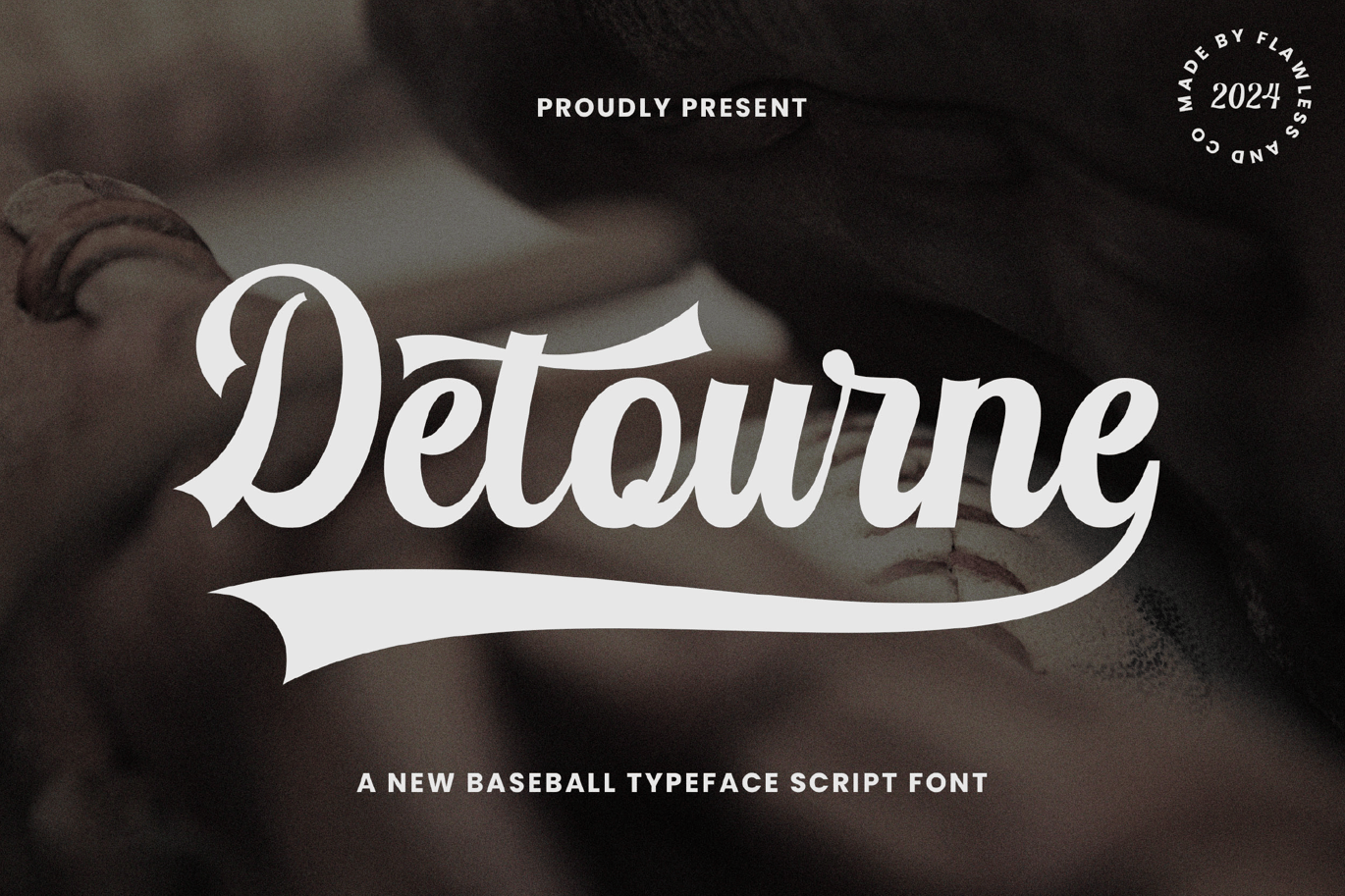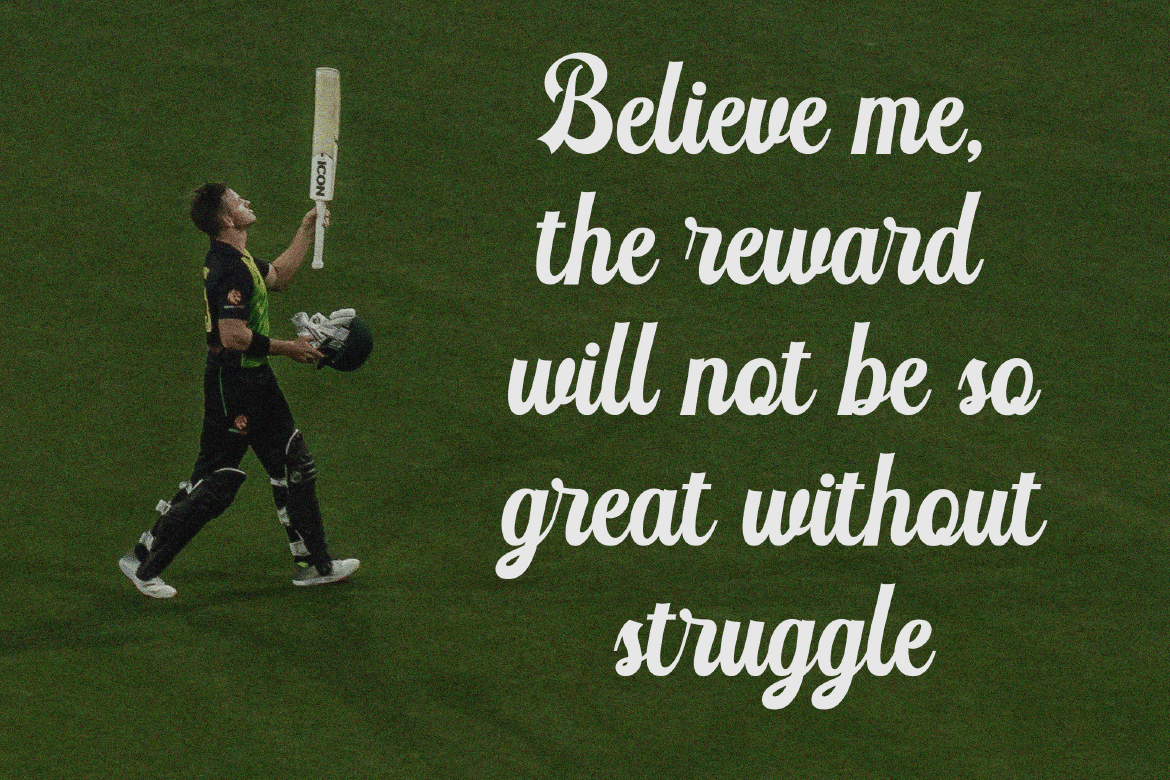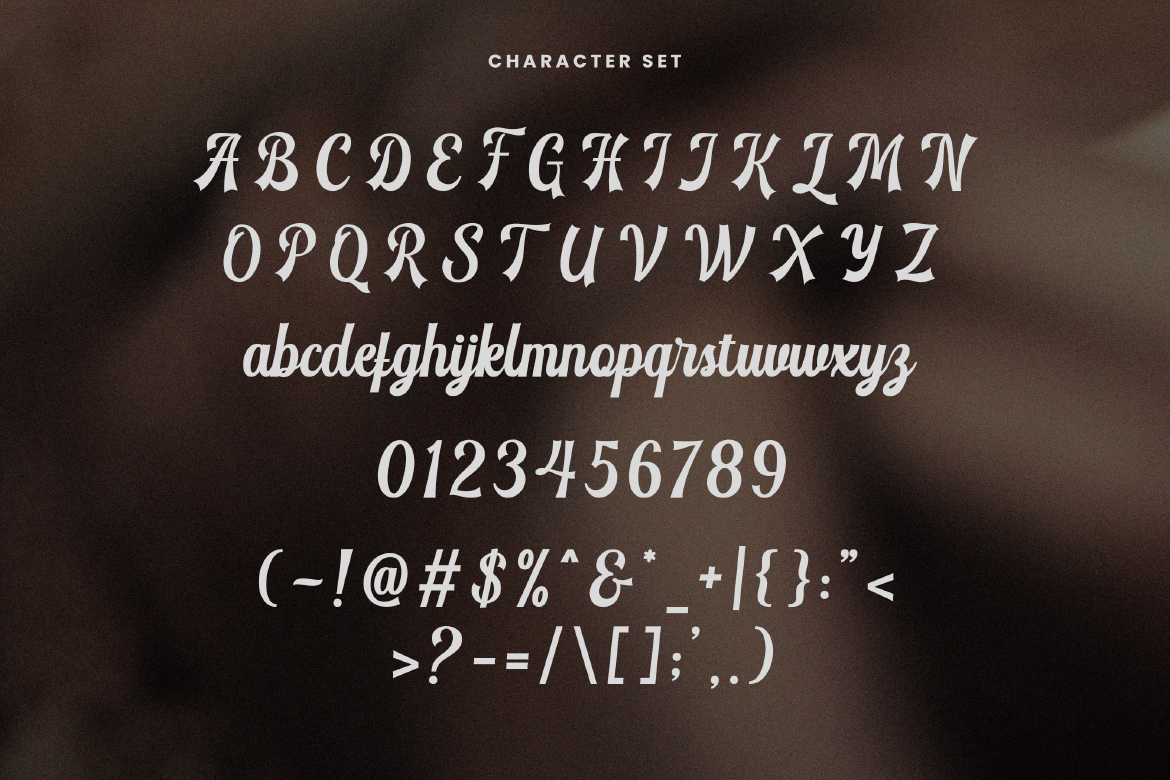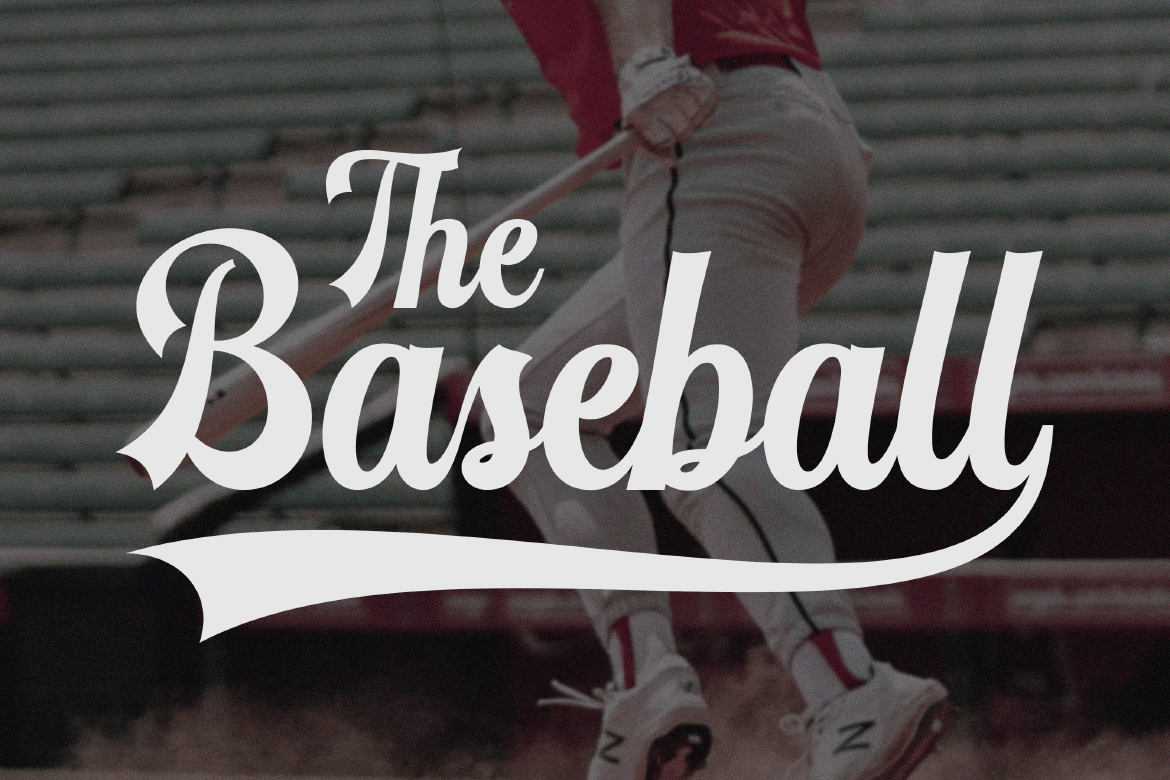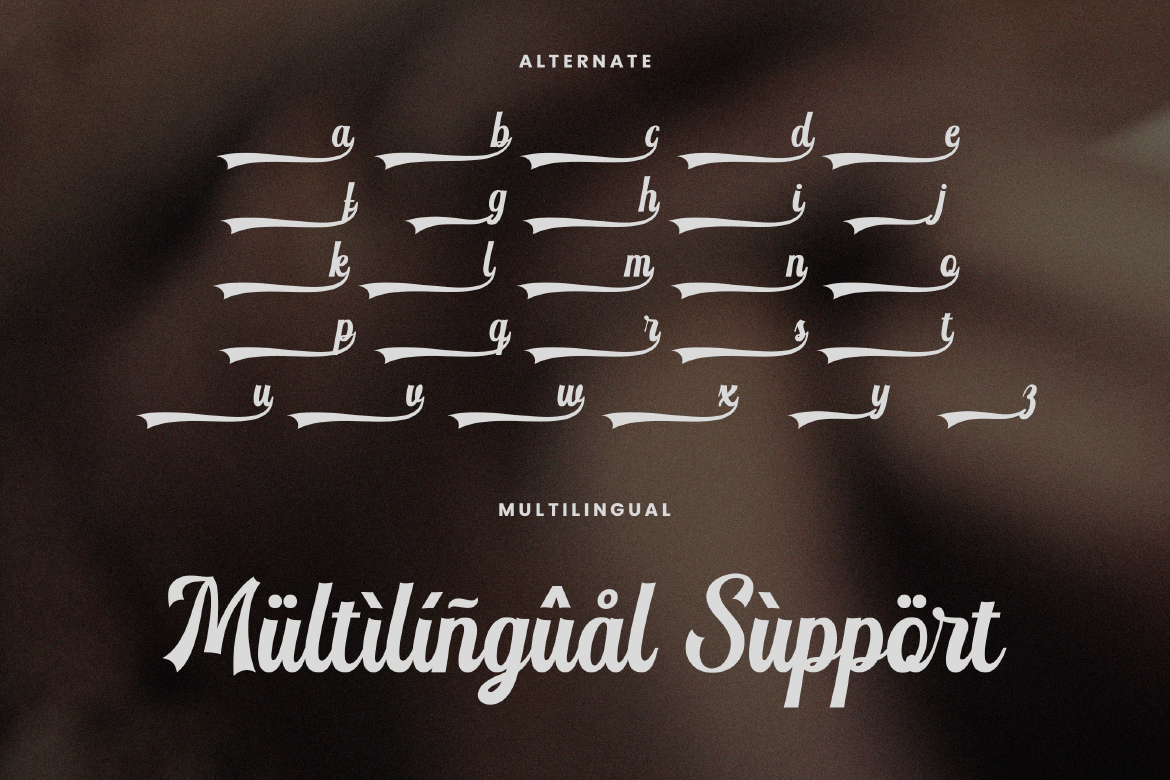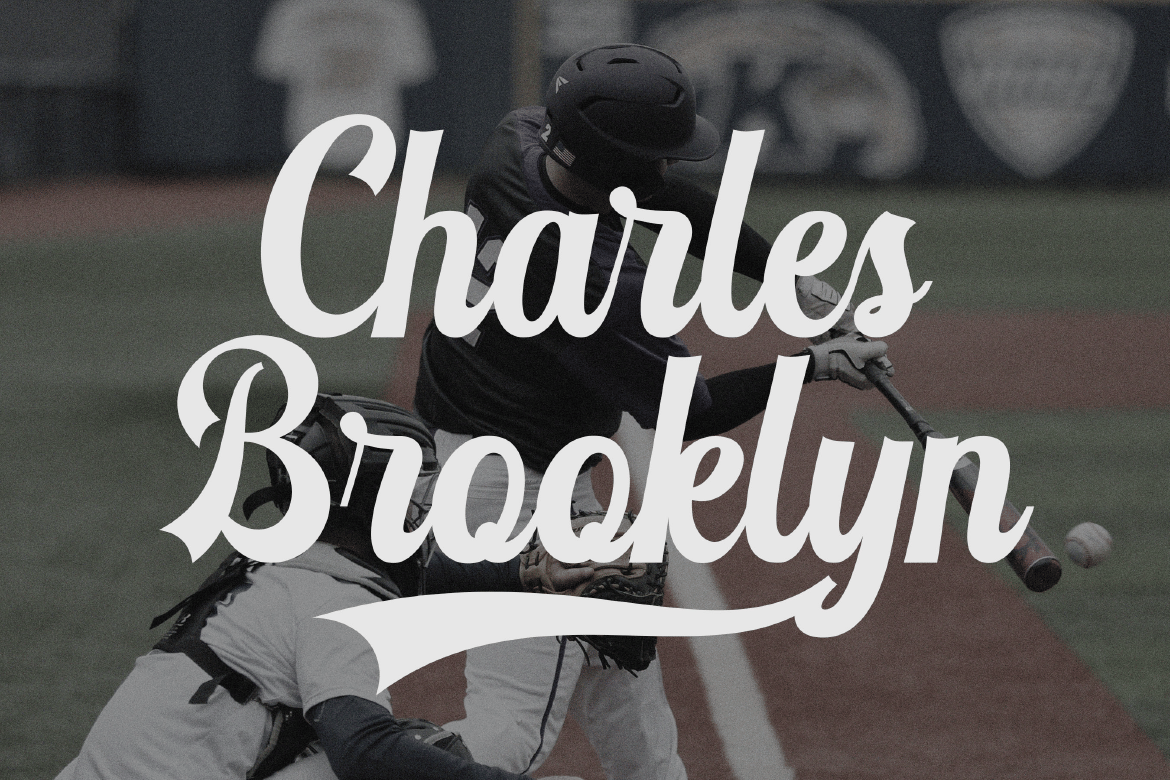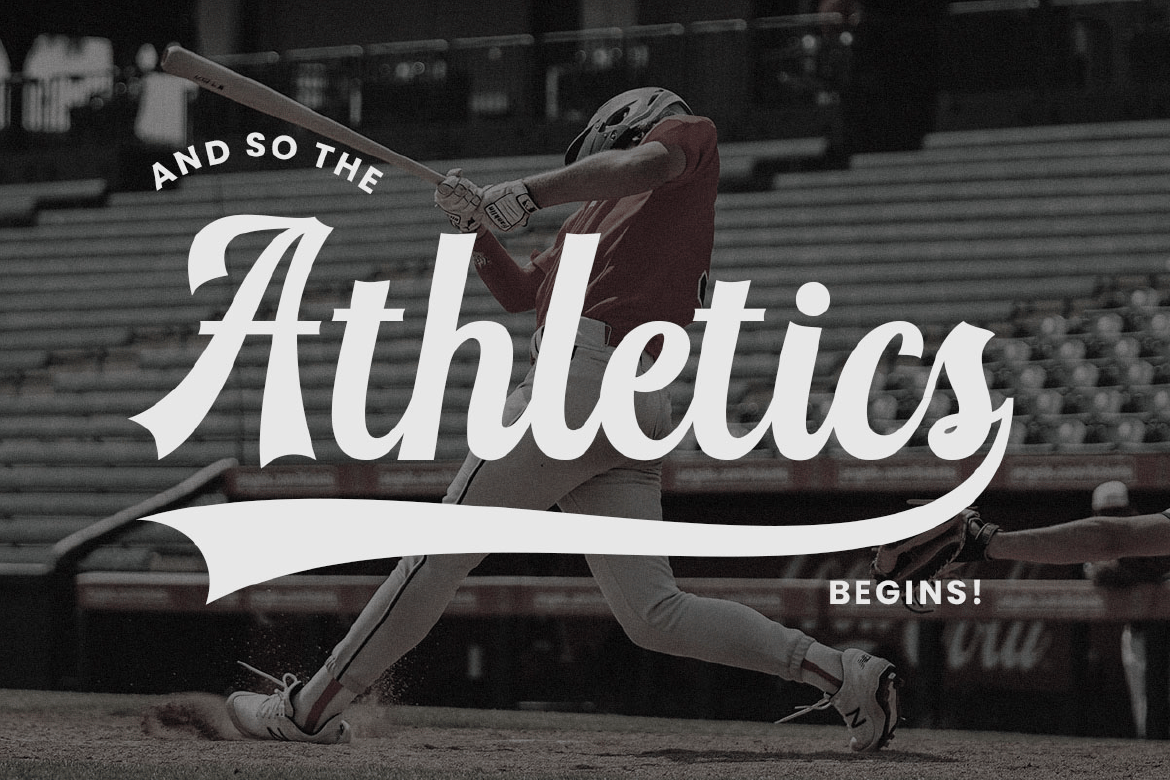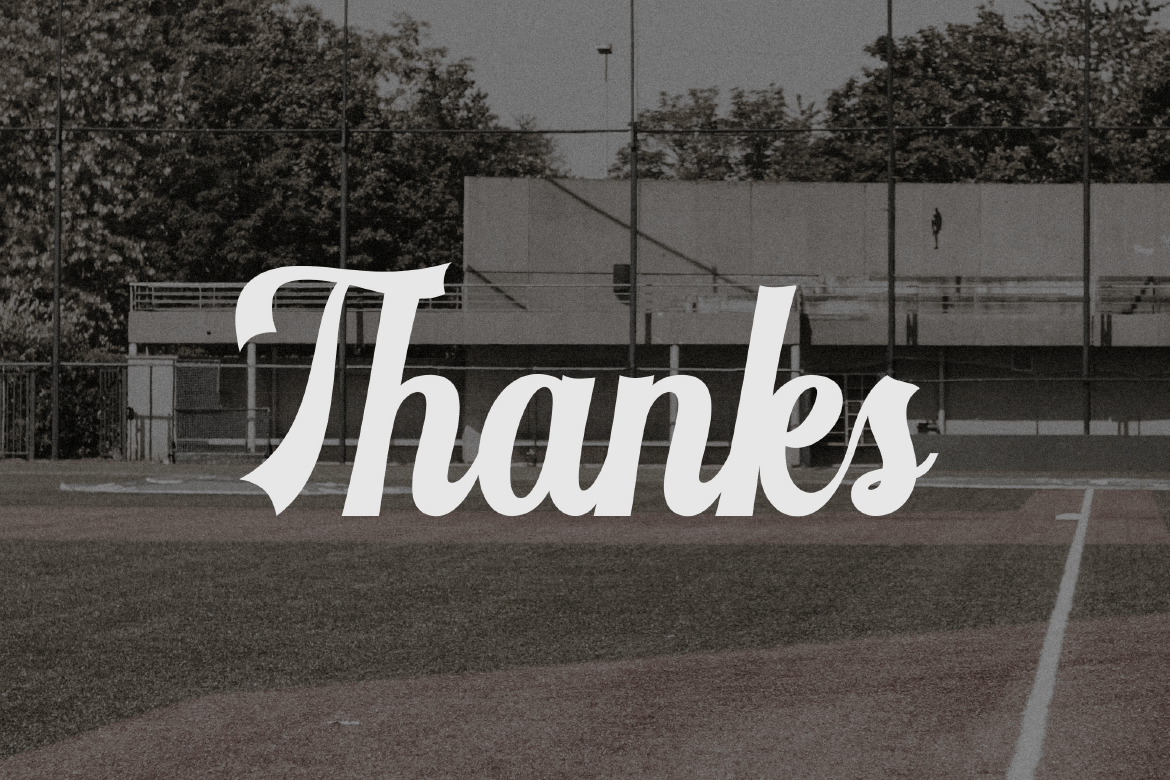
Detourne – Baseball Script Font
Introducing “Detourne,” a sports baseball font with a script retro-style that brings the timeless elegance and nostalgic charm of baseball to your designs. Perfect for sports branding, team jerseys, promotional materials, and more, Detourne captures the spirit of pastime with its stylish and fluid letterforms.